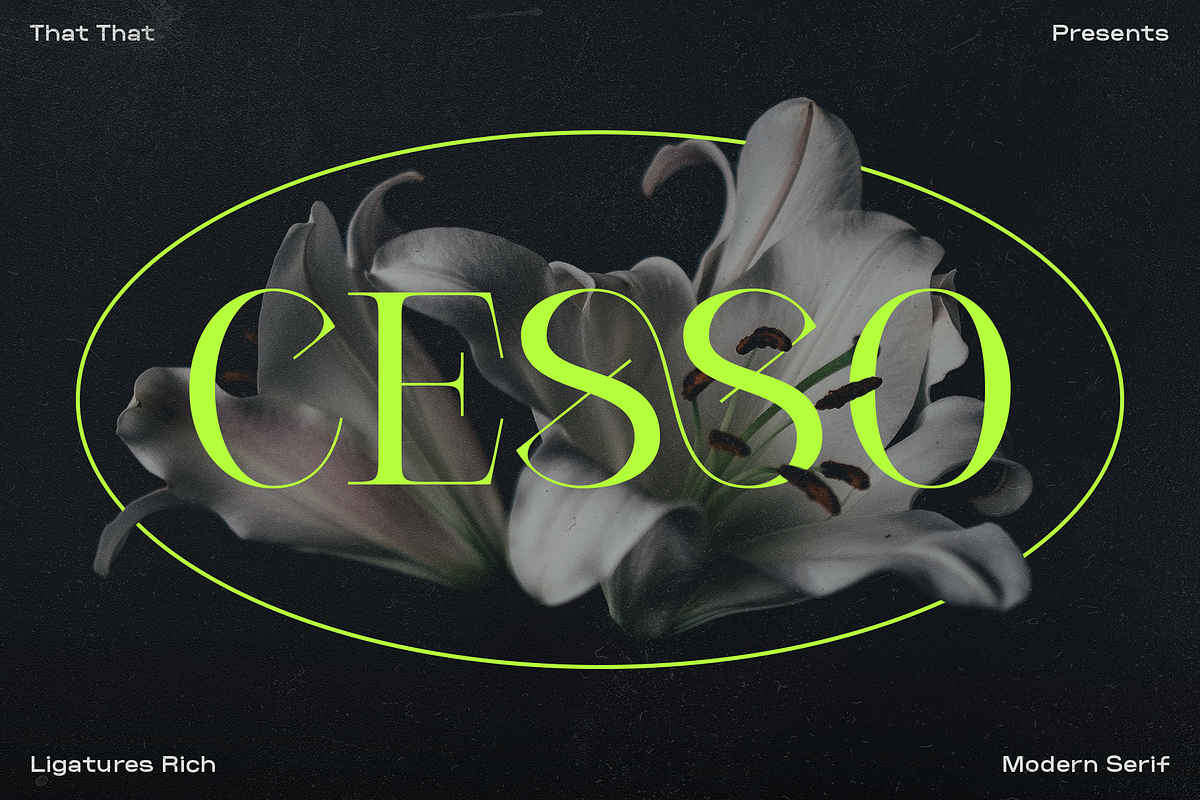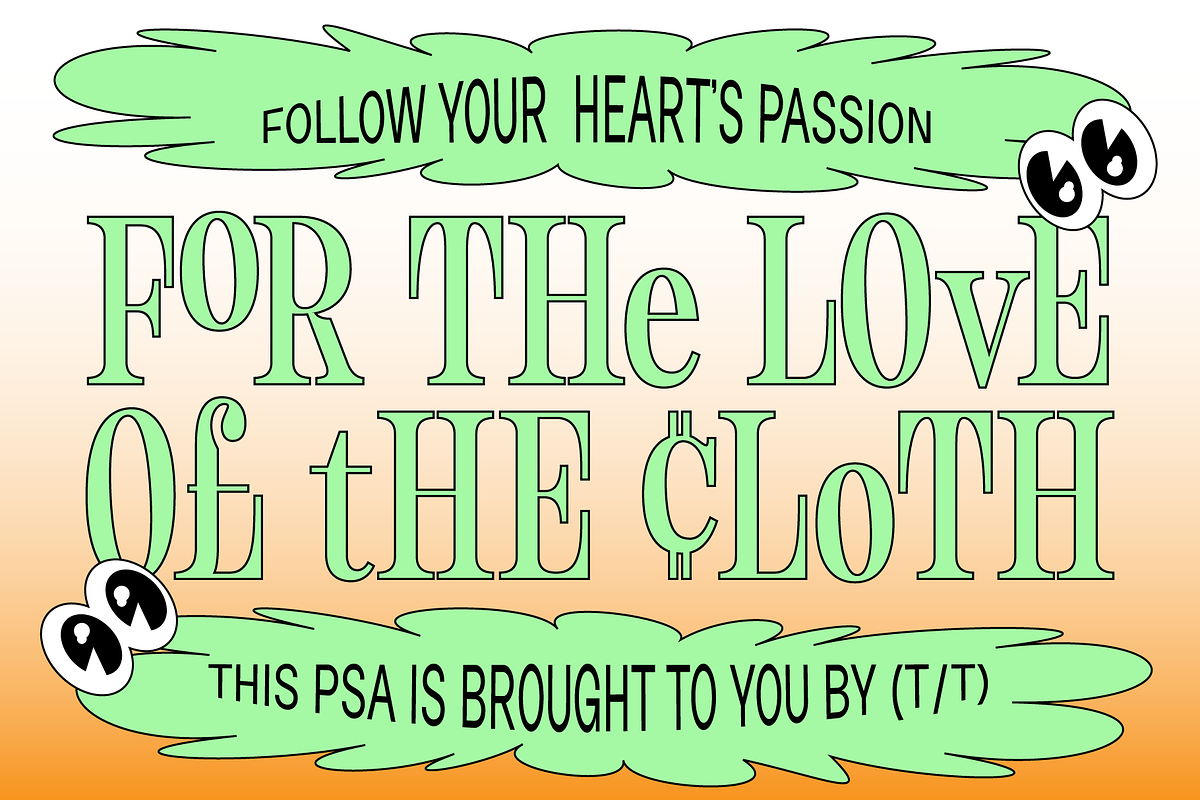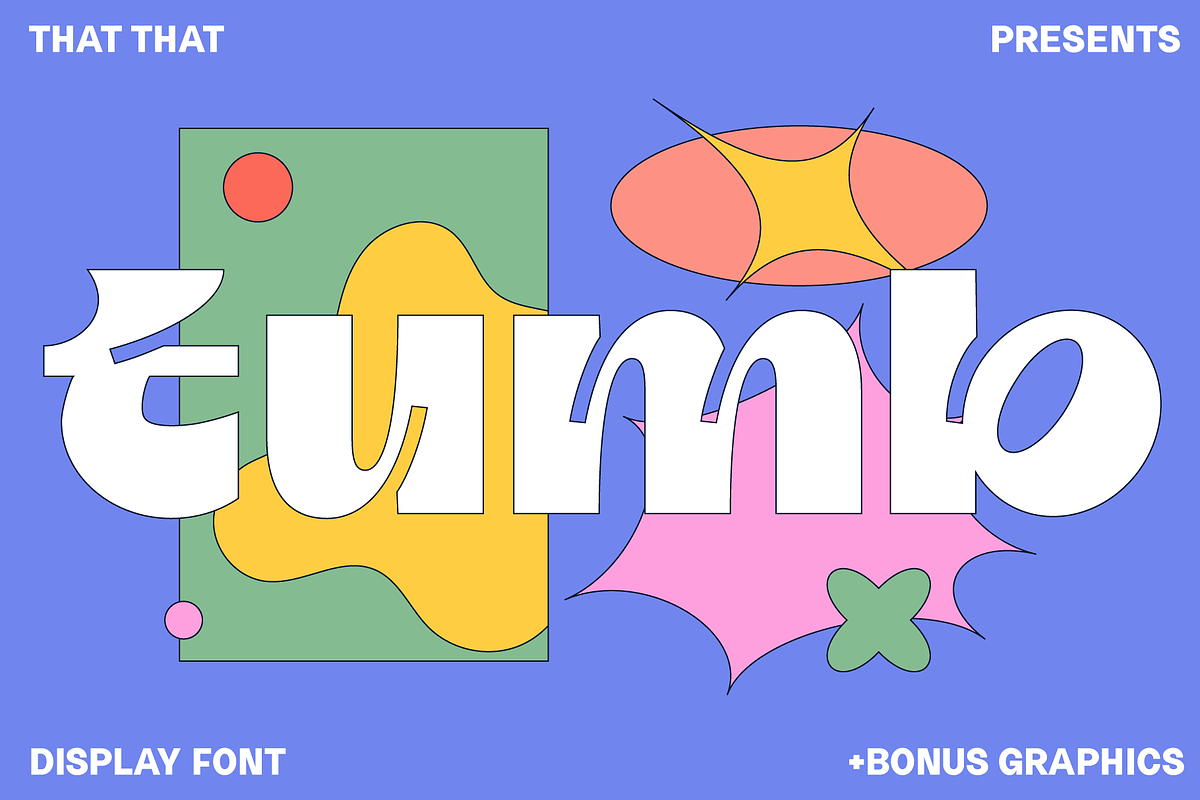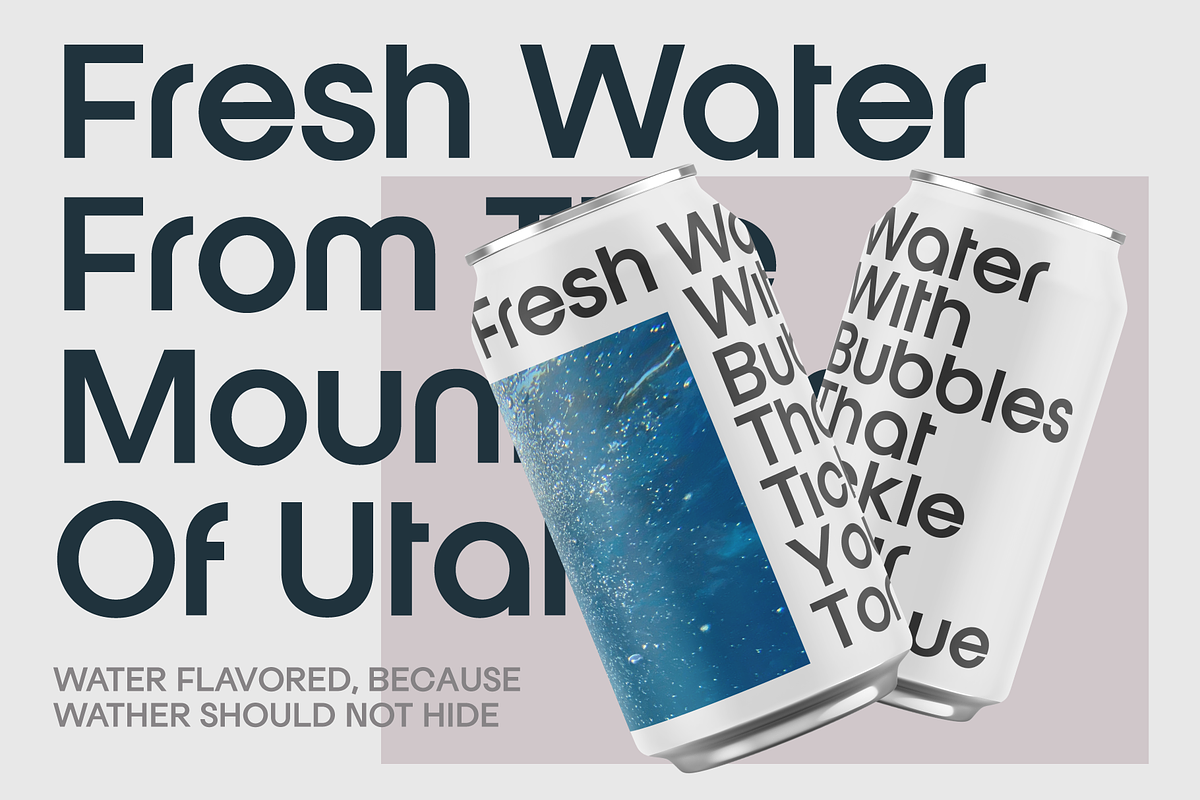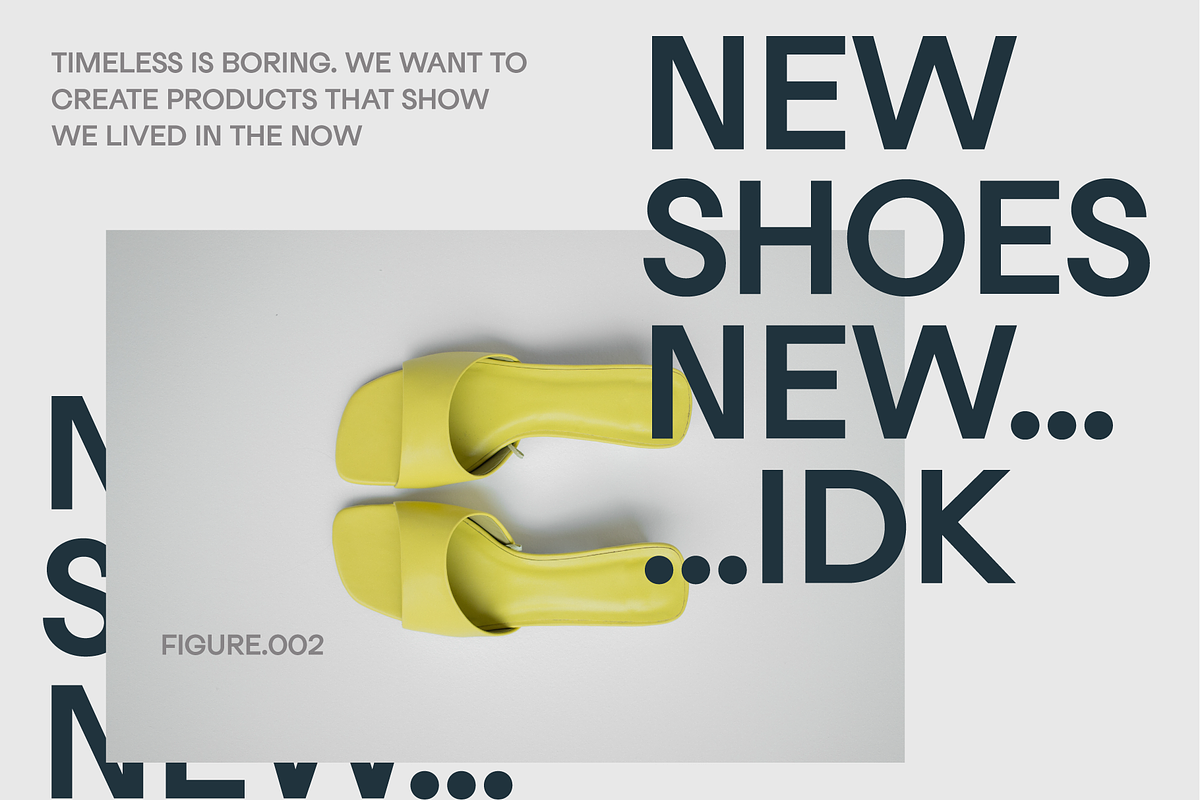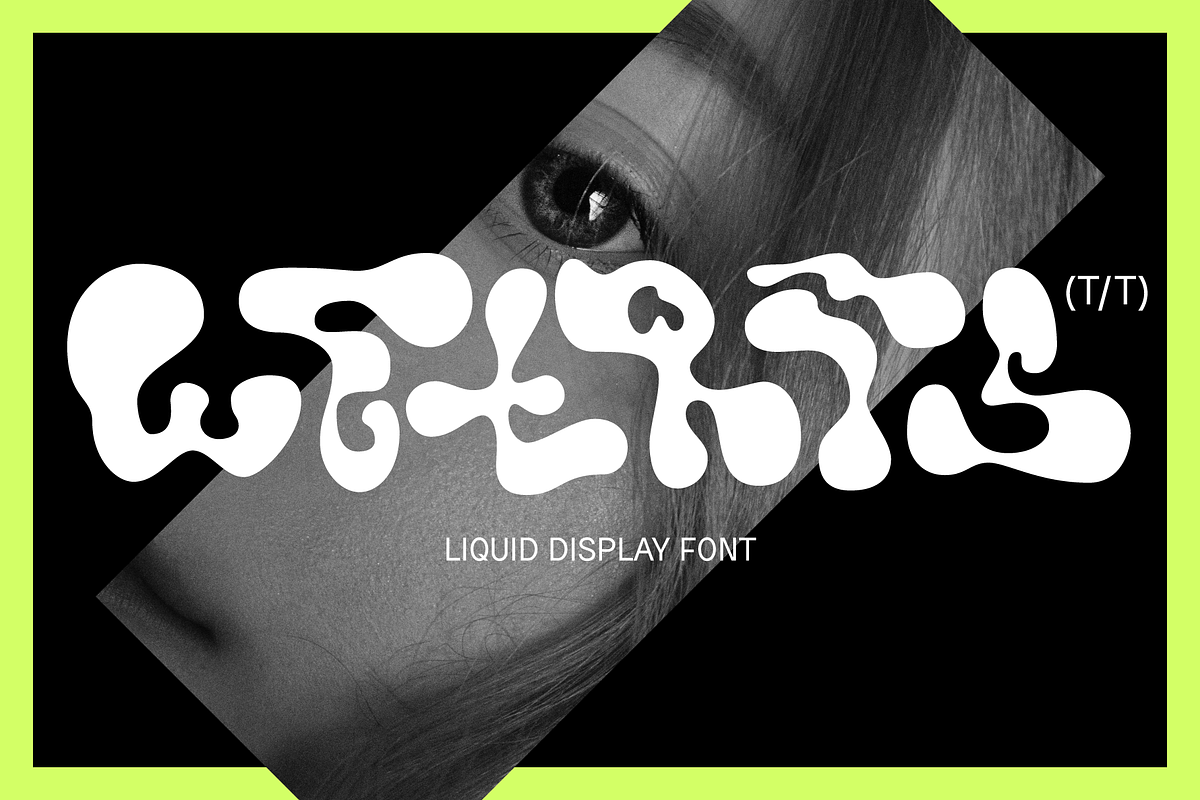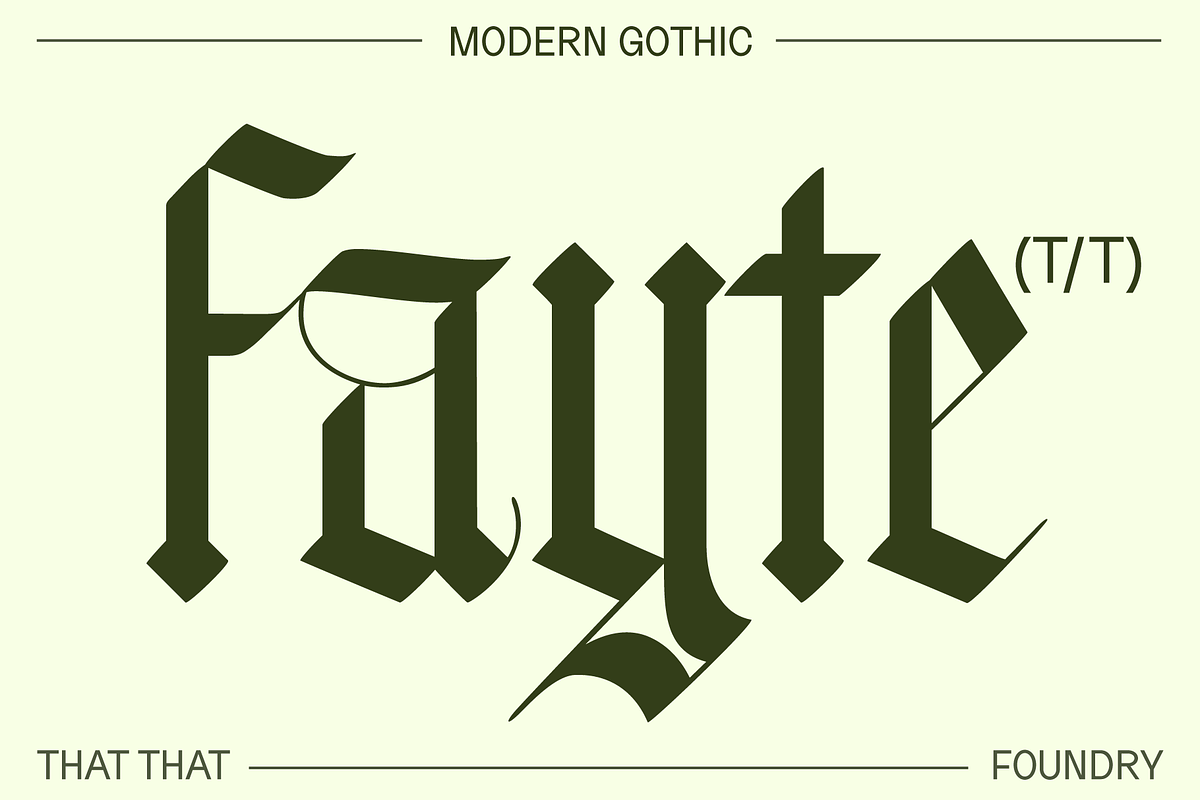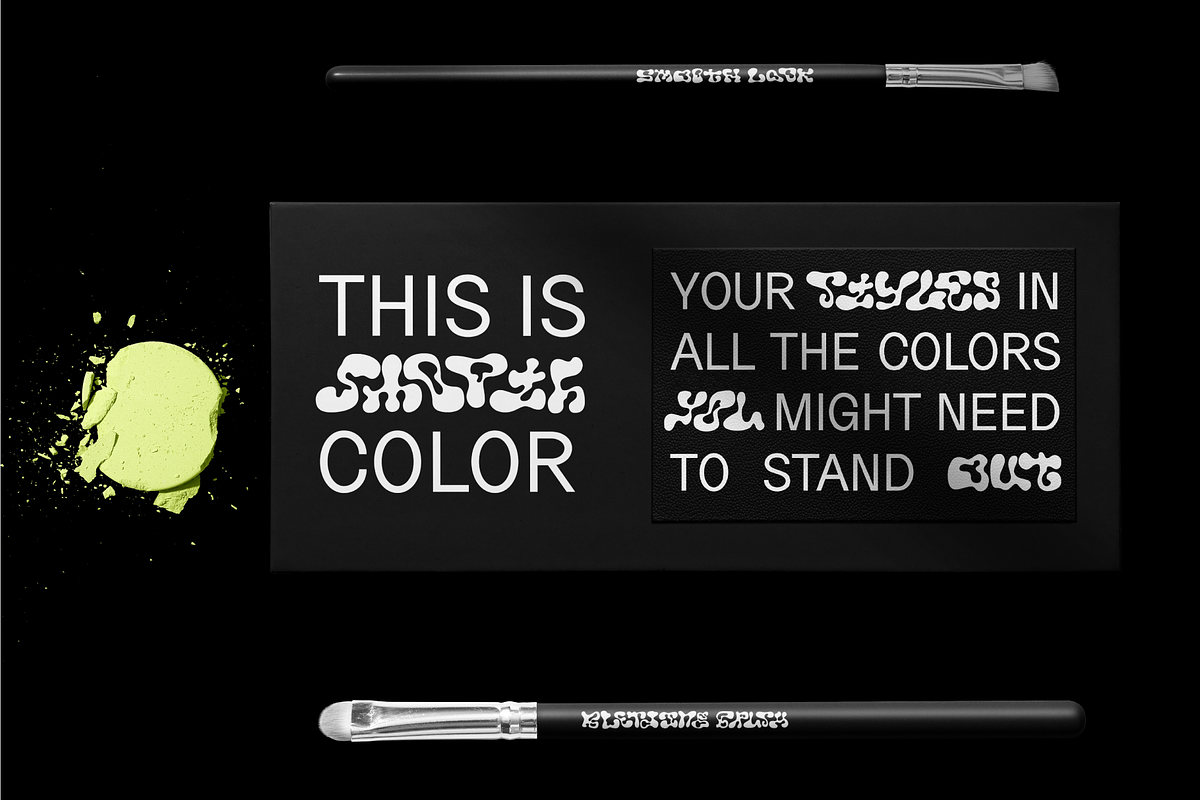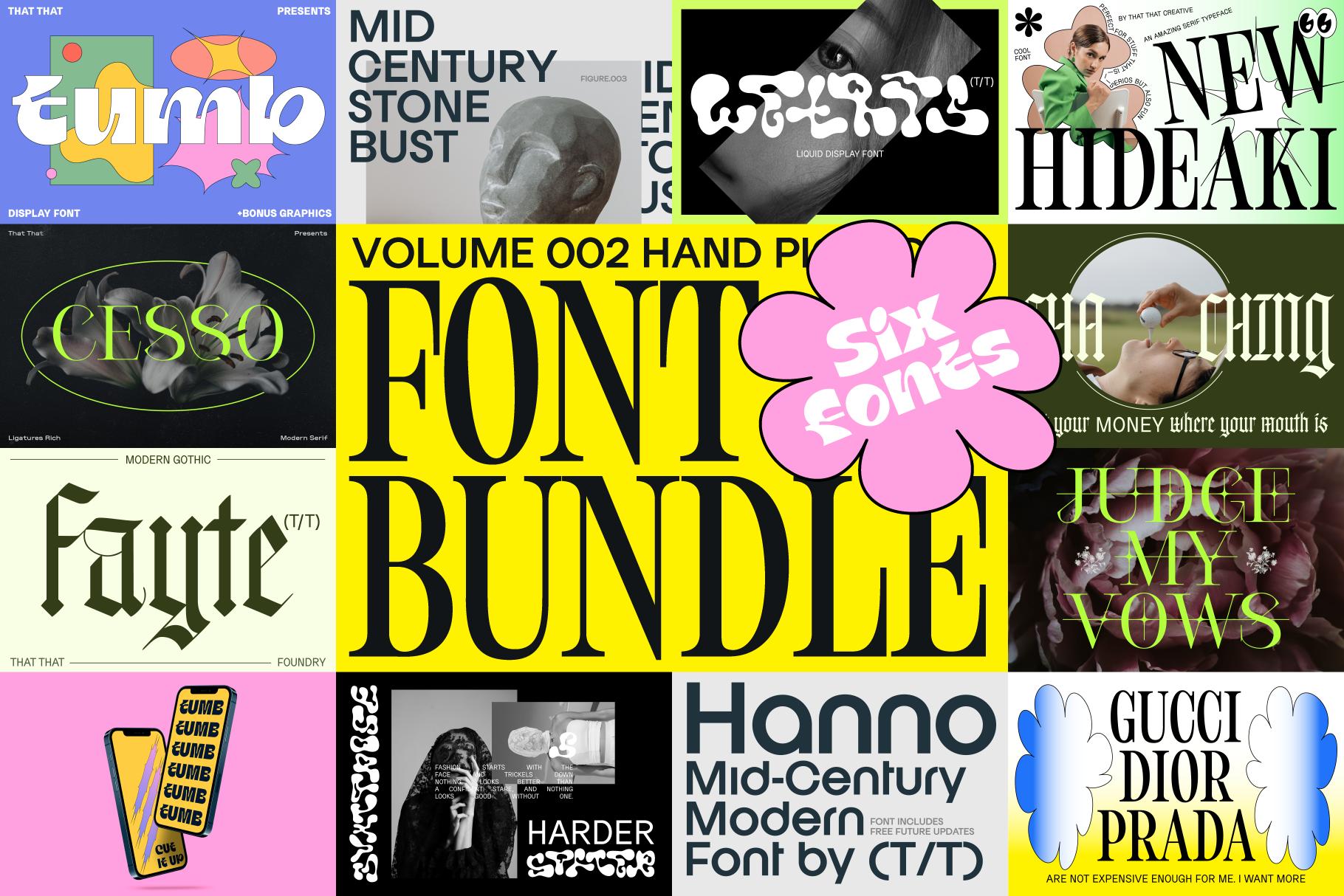
Hand Picked Font Bundle Vol 02
6 fonts that have all been hand-picked by the Creative Market Staff and are some of That That best selling fonts over the past few months You can get them all here for over 70% OFF the $106 Original Price buying the individual fonts. These fonts are all display fonts that span the range of retro, modern, classic, geometric, bold, trippy, quirky, playful, and elegant. They are Serif, sans, and blackletter. This Font Bundle is perfect for all your designs from posters to magazines, Instagram to fashion. That That is hitting you with a wide range of type tools in this bundle.
Bundle Includes
- Tumb
- Wetris
- Hideaki
- Fayte
- Hanno
- Cesso